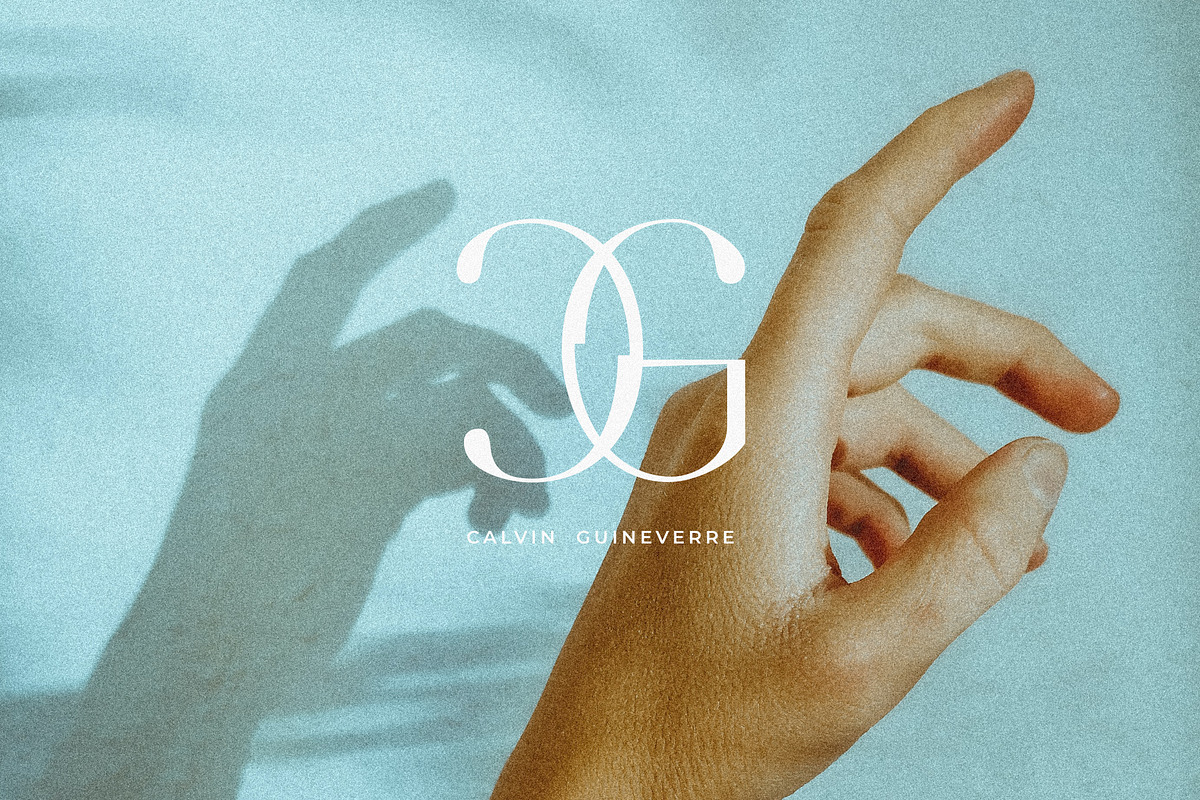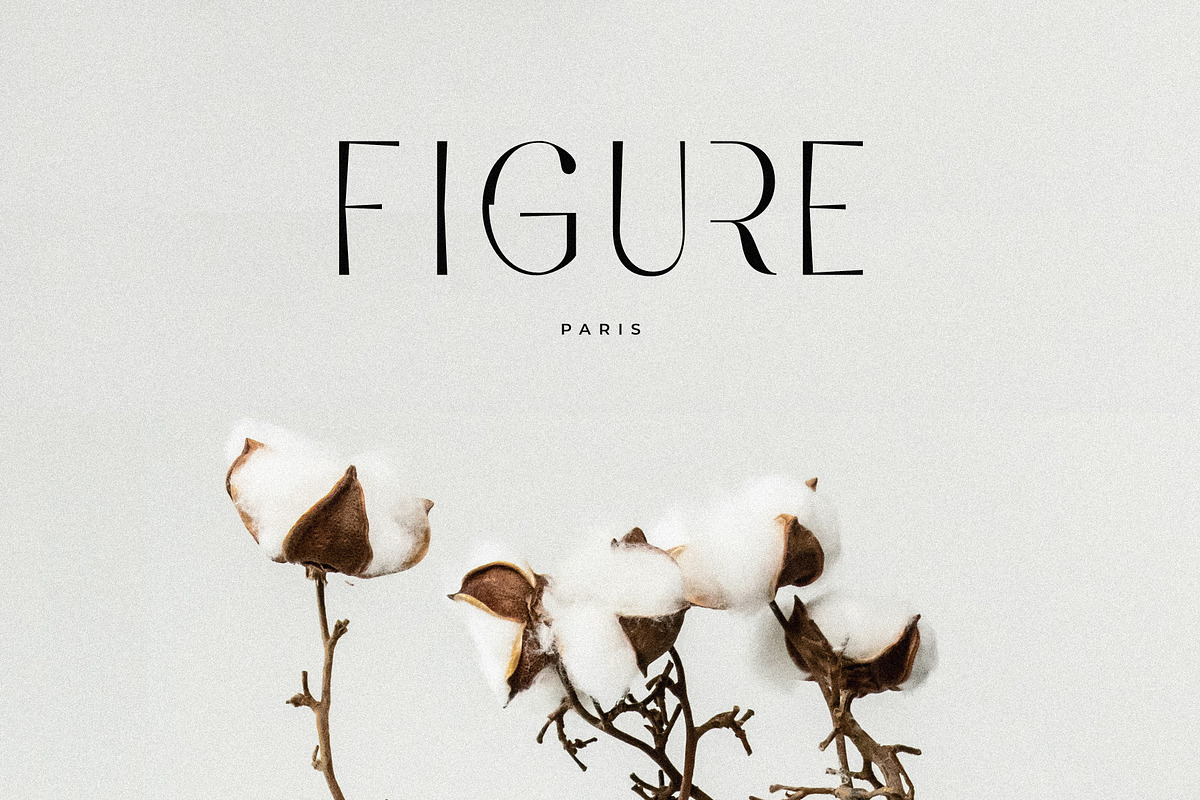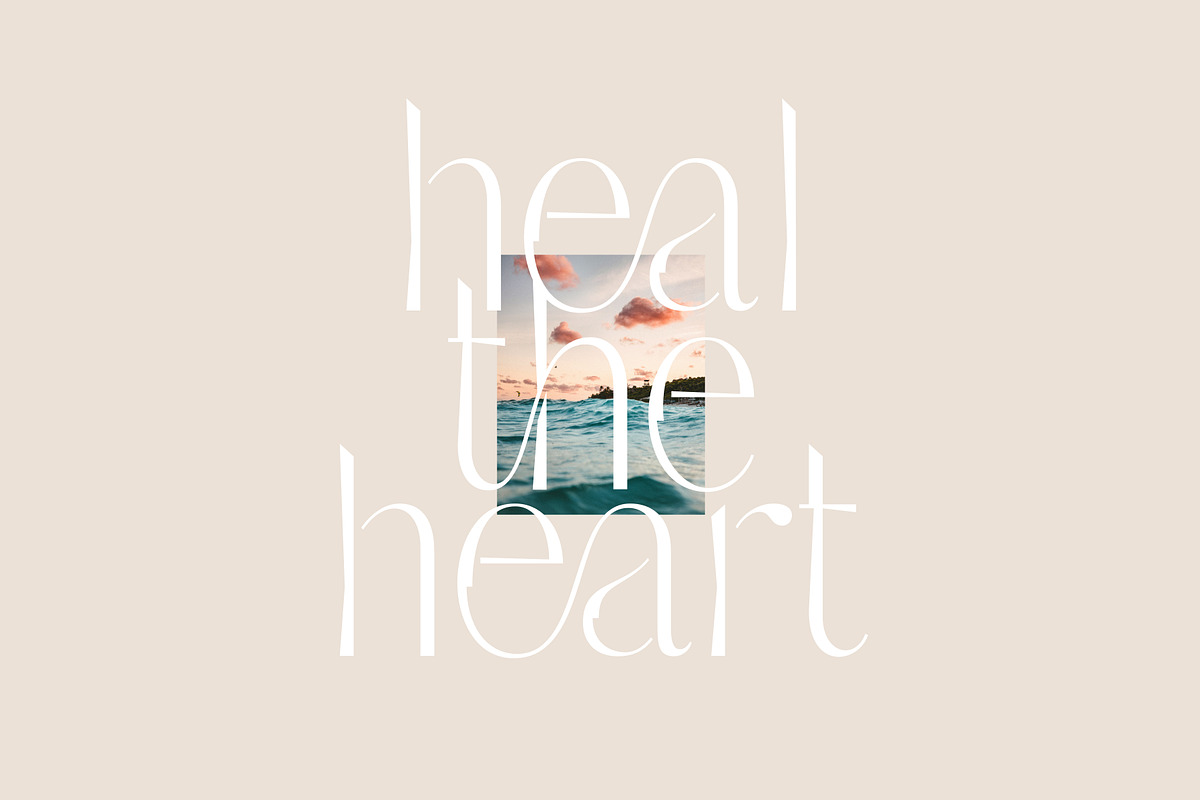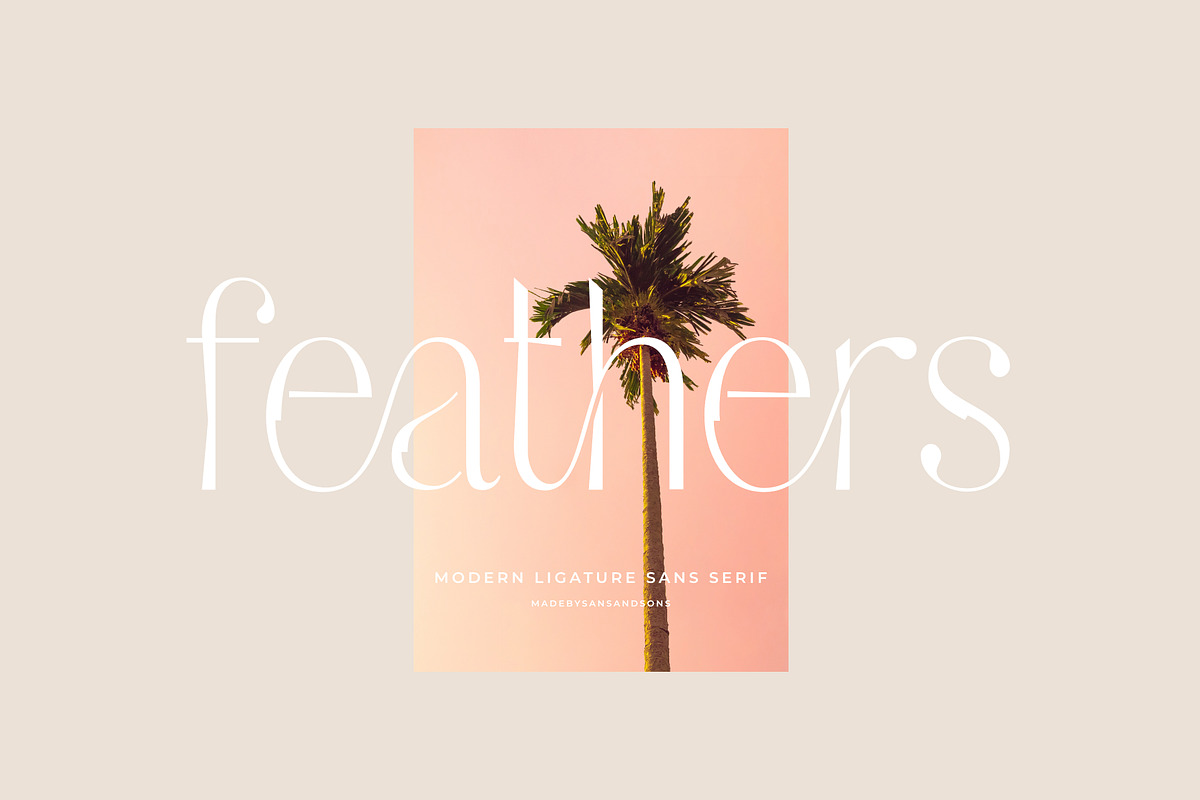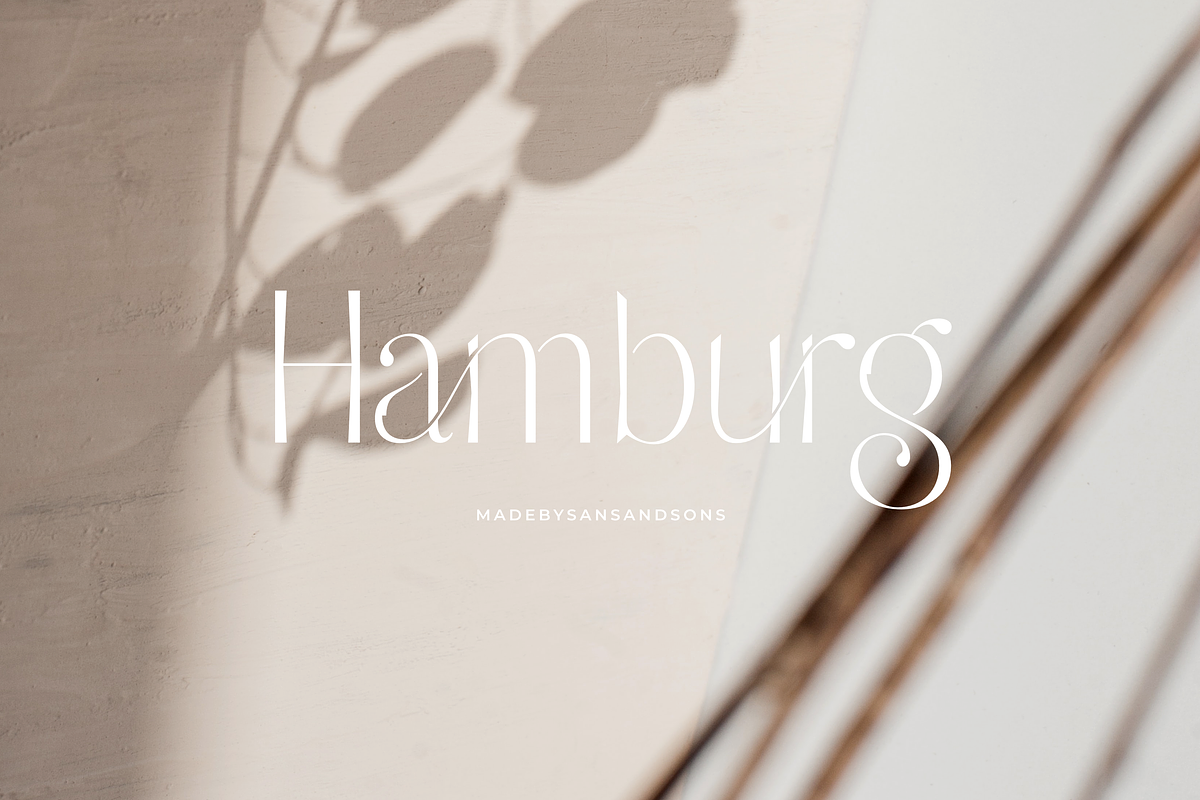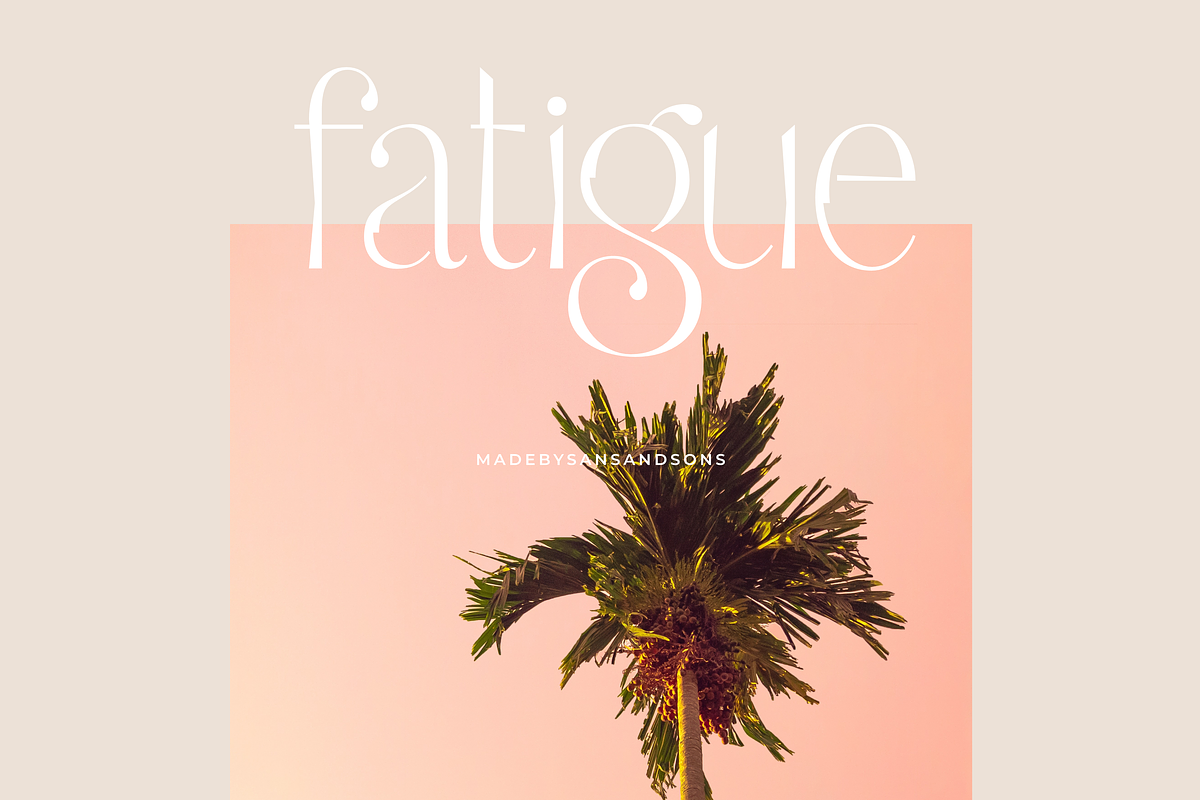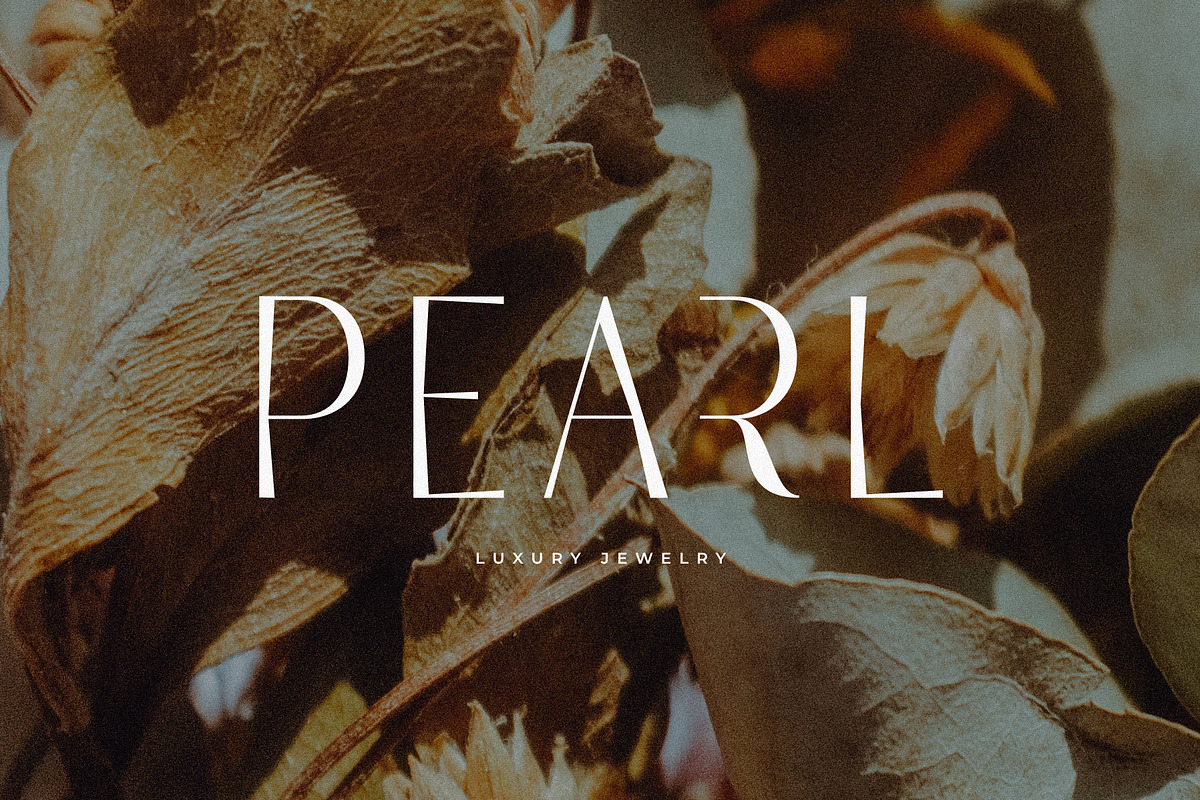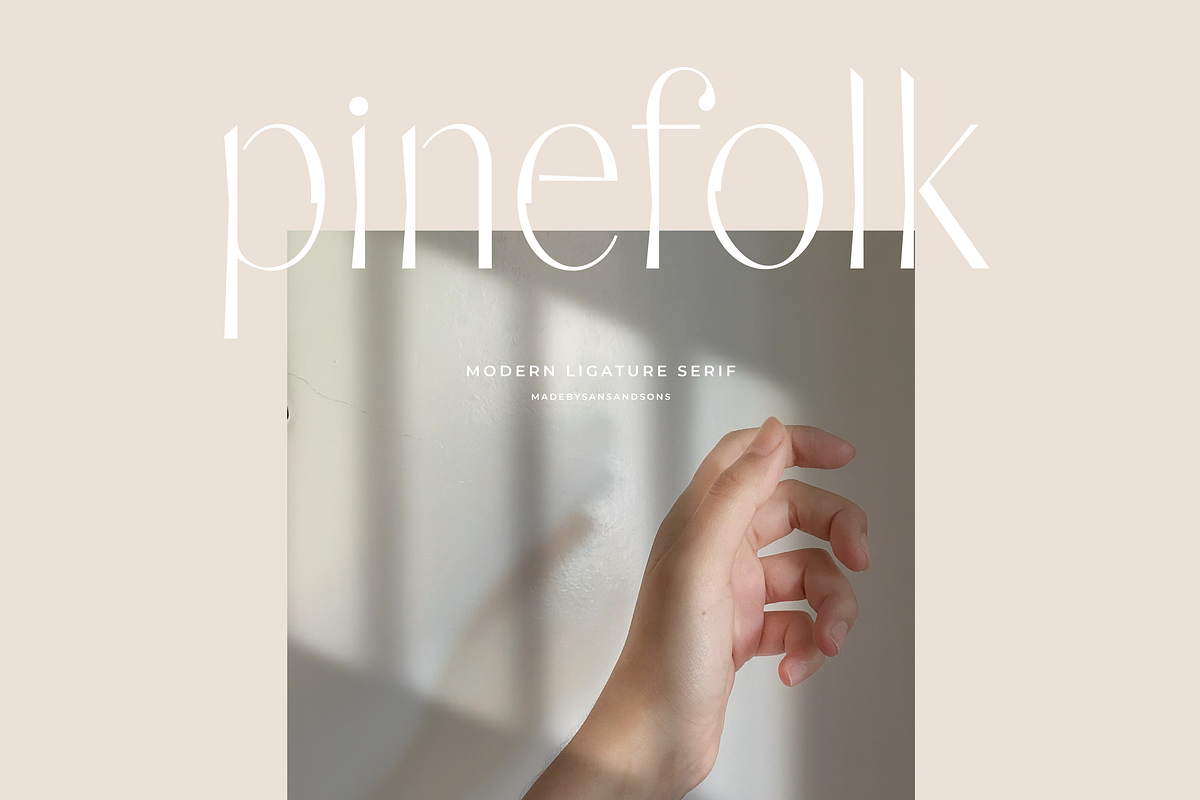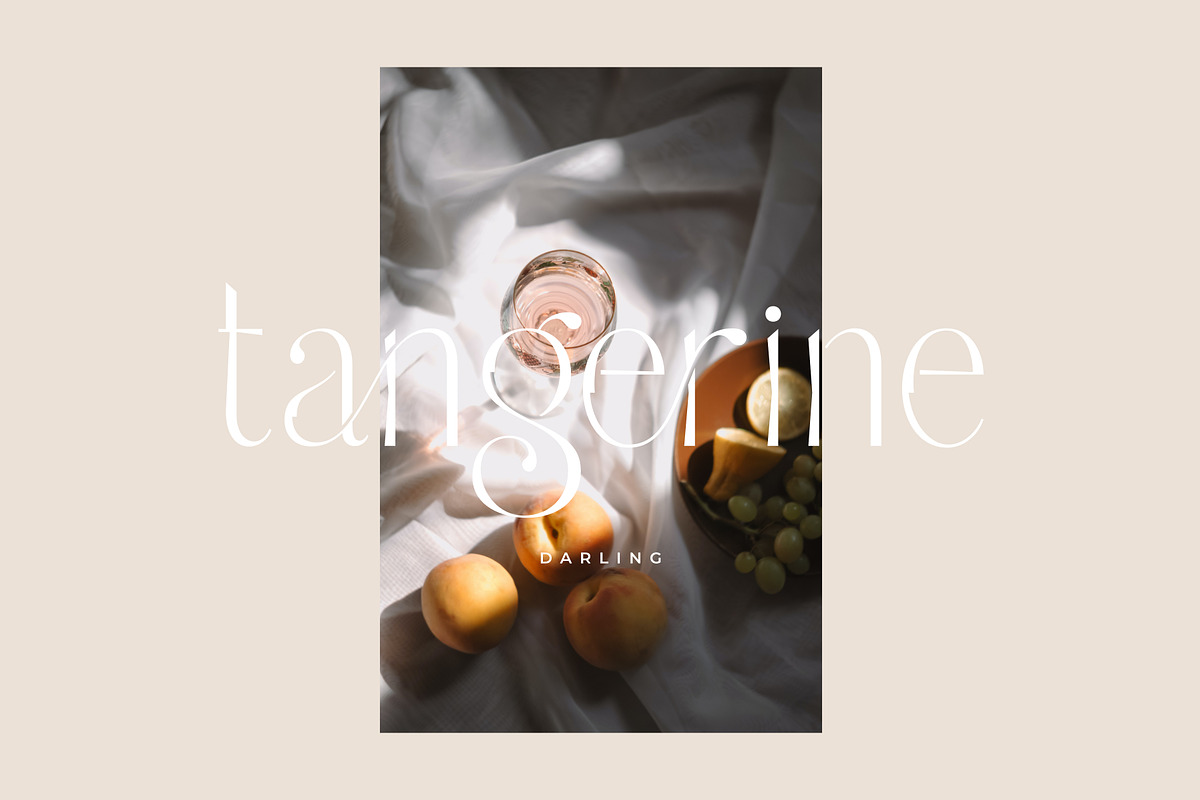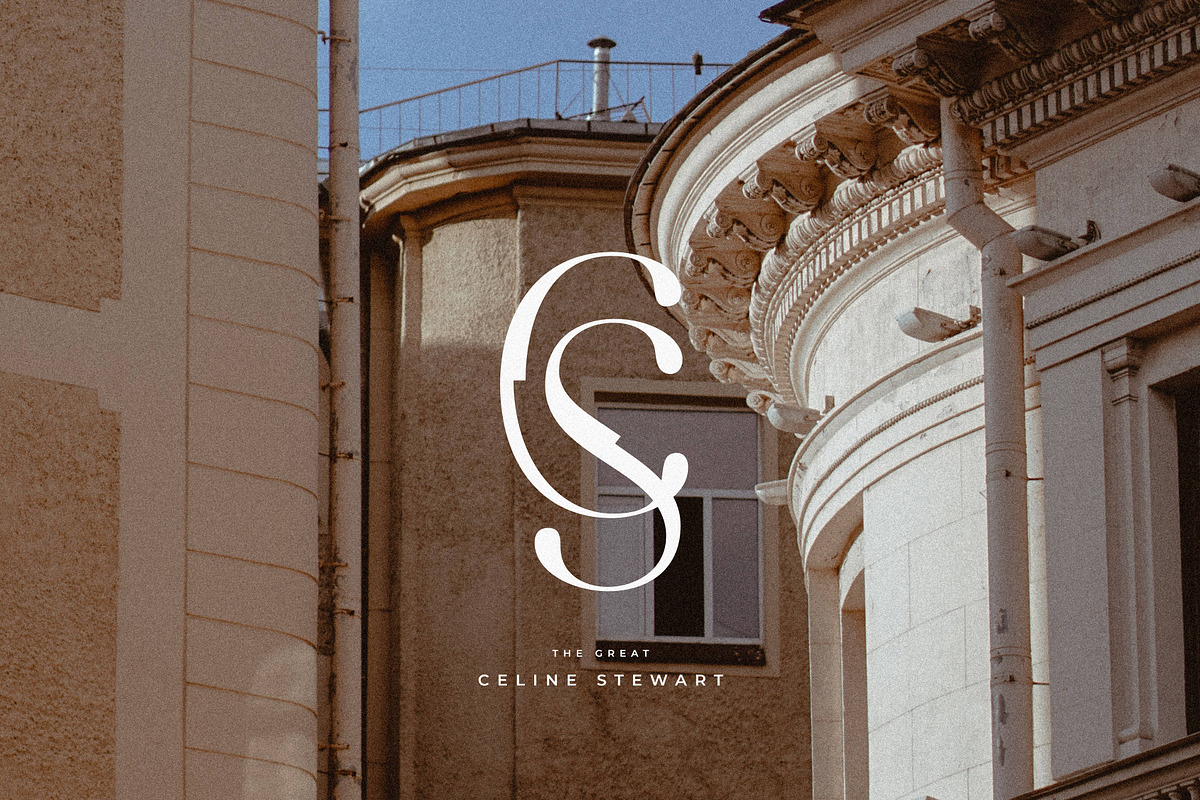
Feathers - Ligature Sans Serif
Feathers - Modern Ligature Font by Sans and Sons
introducing our new "Feathers" Modern Ligature with Elegant Style this is perfect for branding, logos, invitation, masterheads and more.